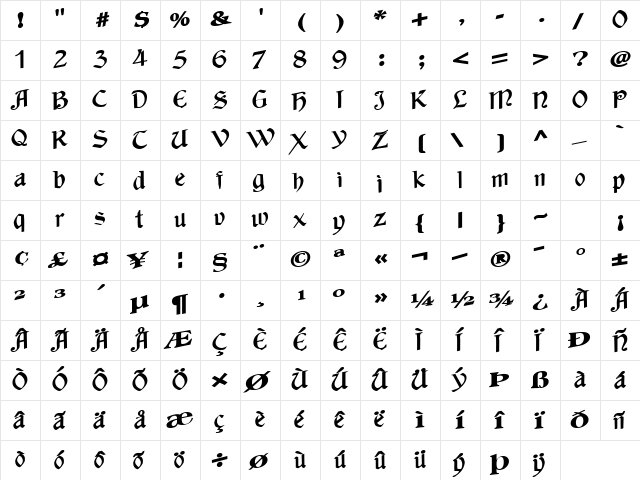
AgainstTheWind49 Bold
Design Context for AgainstTheWind49 Typeface
AgainstTheWind49 is a composed and adaptable typeface that performs quietly and consistently across a wide range of design contexts. Its bold stroke weight gives it real presence on the page.